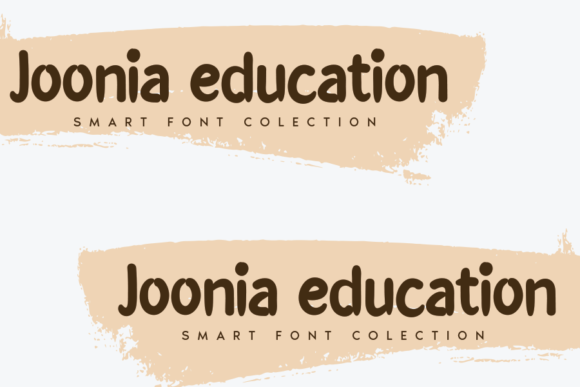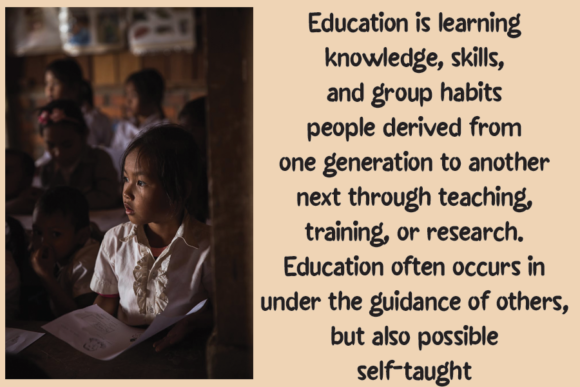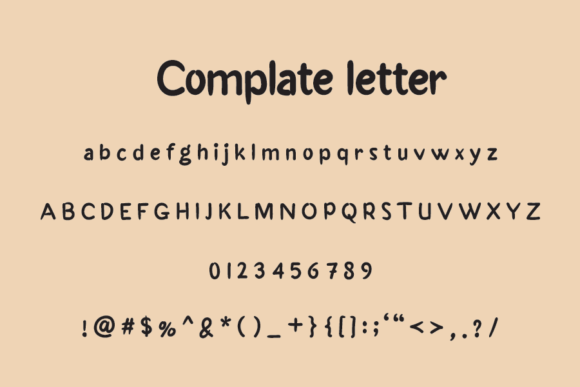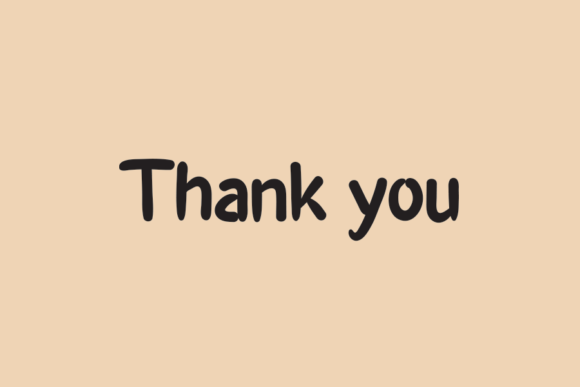
Joonia Education Font
Joonia Education is a sweet and friendly handwritten font. Its natural and unique style makes it incredibly fitting to a large pool of designs. The only limit is your imagination!